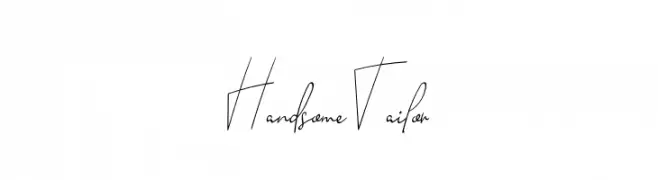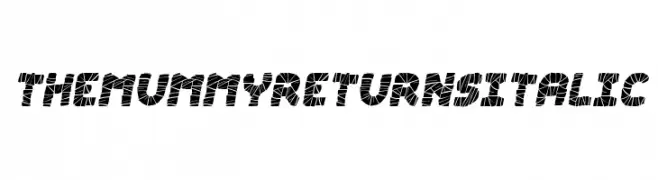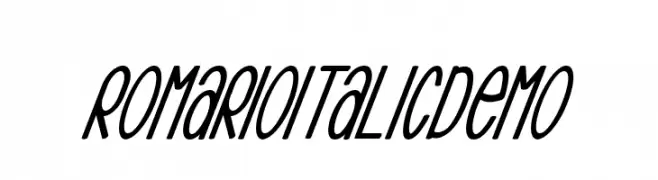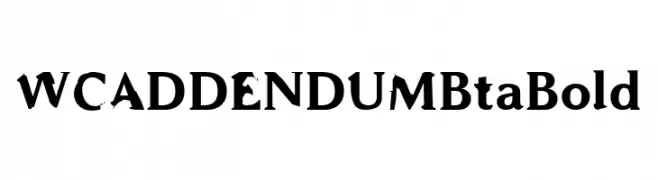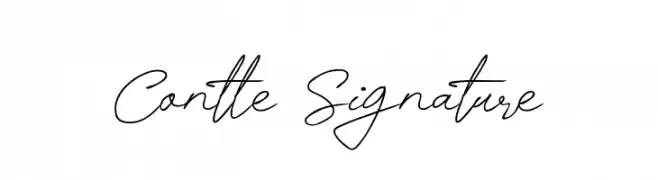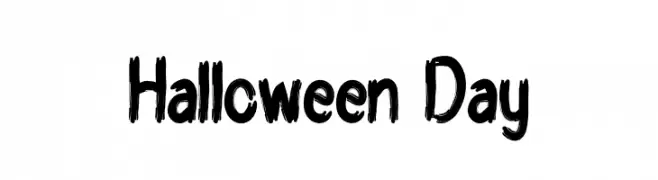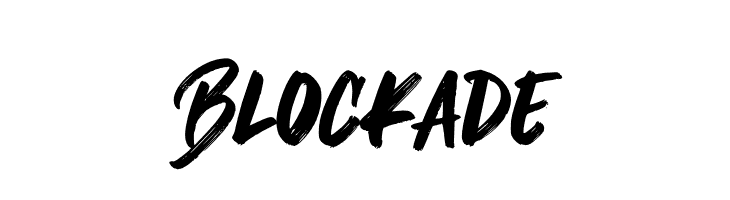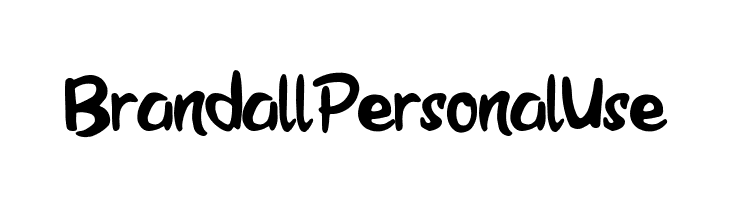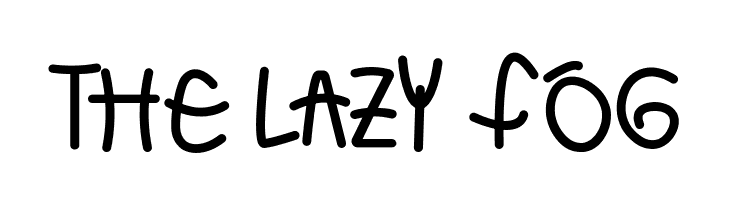
A delicate and elegant script font with a natural handwritten style.
A bold, italicized decorative font with a textured, bandage-like pattern.
A sleek, italicized font with elongated, narrow characters for a dynamic look.
A bold, high-contrast serif font with dramatic and elegant features.
A bold, 3D font with a strong, collegiate style.
A flowing, cursive font with a handwritten appearance.
A sophisticated handwritten script with fluid, continuous strokes and elegant curves.
A bold, brush-style font with an energetic and artistic flair.
A bold, pixelated font with a retro, digital aesthetic.
A dynamic and elegant script font with fluid, cursive letterforms.